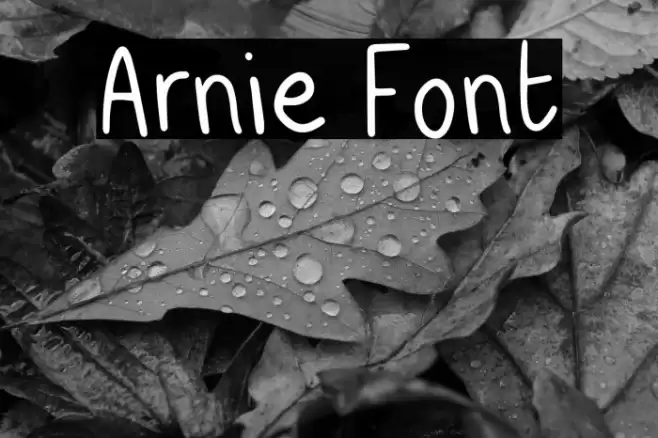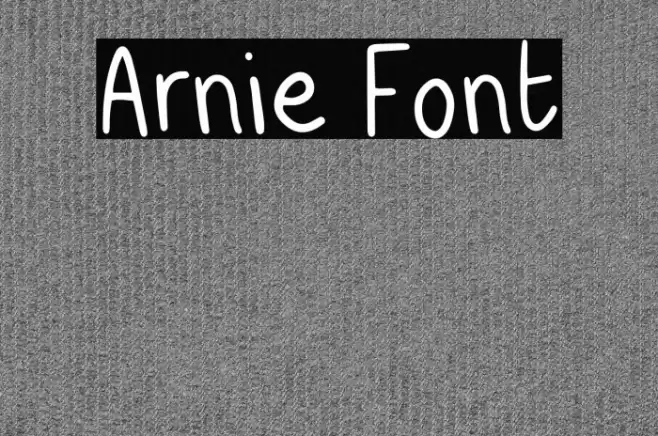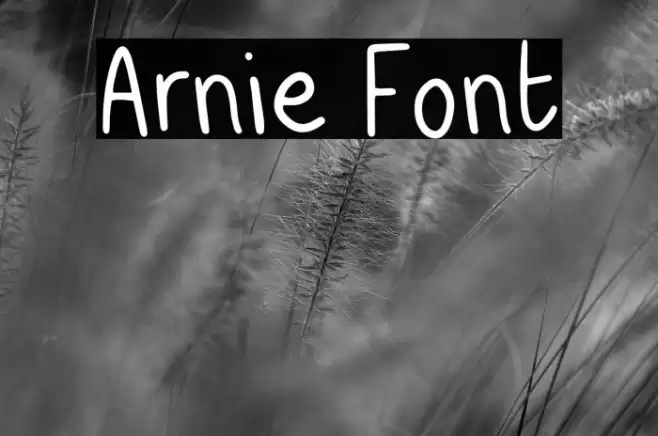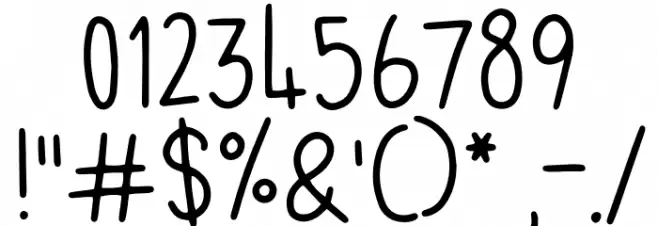
Arnie Font
Arnie Description
This font features a playful and casual handwritten style, characterized by its irregular strokes and slightly uneven baseline. The letters have a whimsical, informal appearance, making it ideal for projects that require a personal touch. The uppercase and lowercase letters maintain a consistent style, with rounded edges and a friendly demeanor. Numbers and special characters are designed to match the overall aesthetic, ensuring a cohesive look across all text elements. This font is perfect for creative projects that aim to convey warmth and approachability.
A playful, handwritten font with a casual and friendly style from Regular fonts.
- Proposed Projects: Ideal for greeting cards, children's books, personal blogs, and informal branding.
- Overall Style: Casual, Playful
- Use Case: Headlines, Informal text, Creative projects